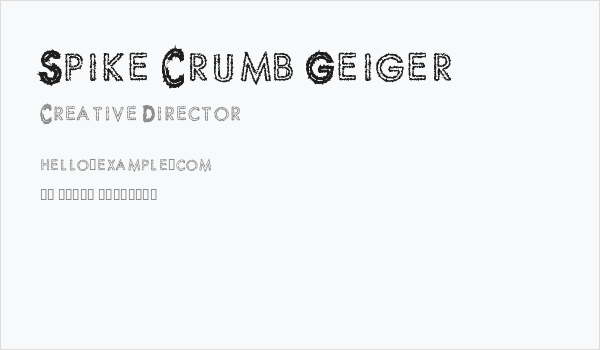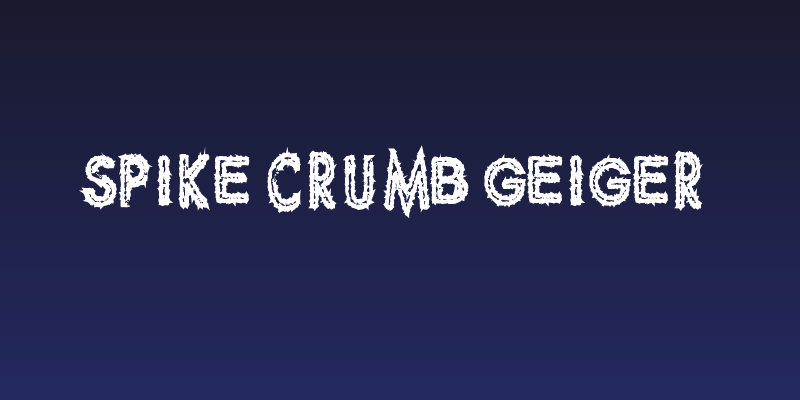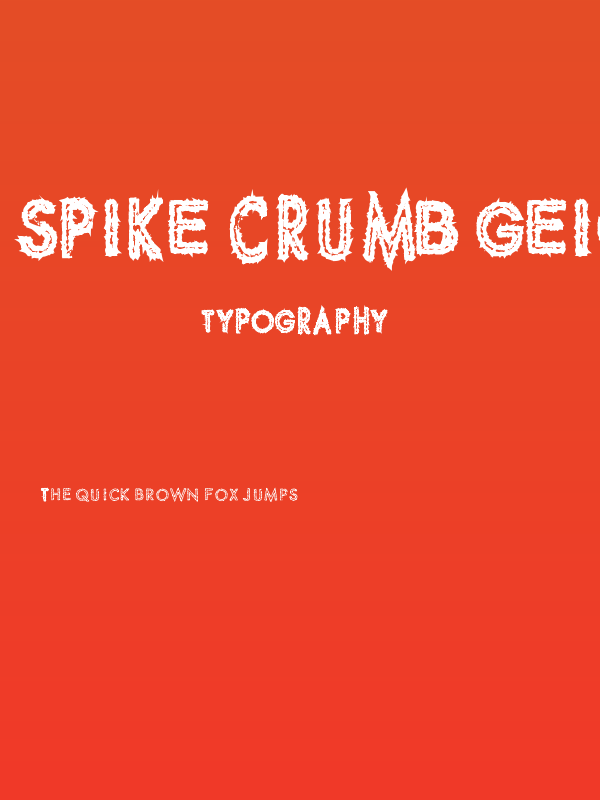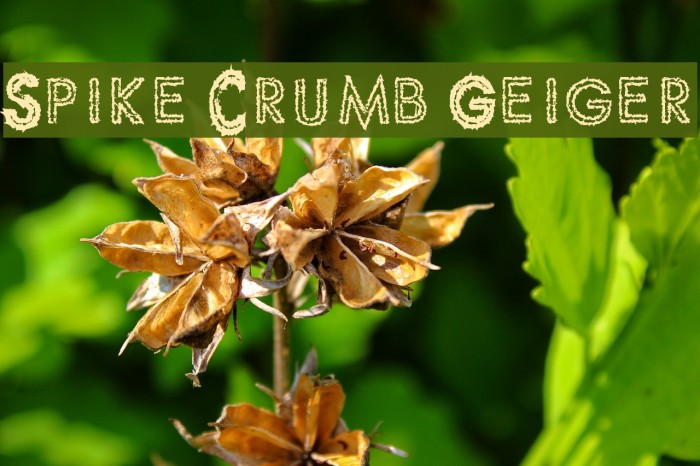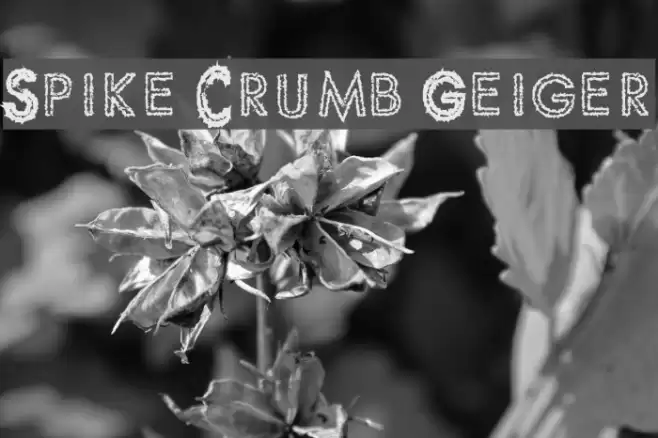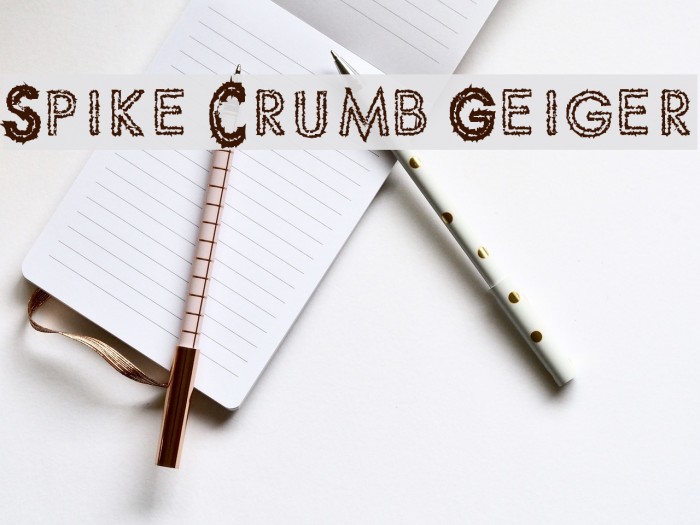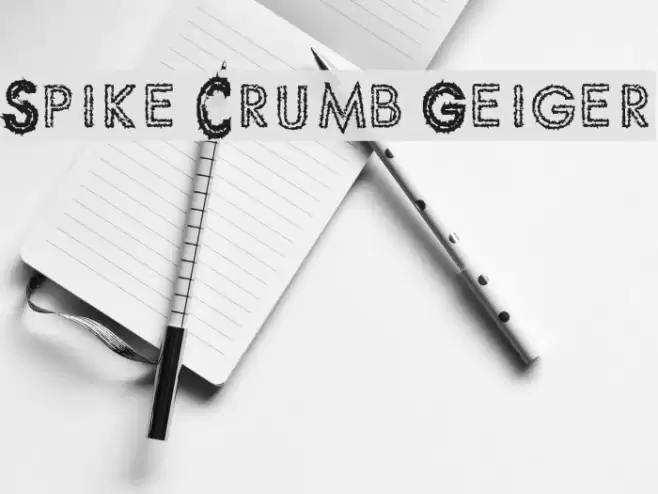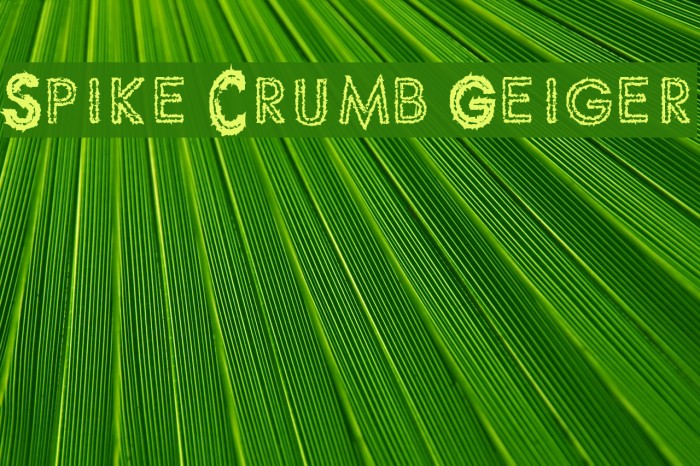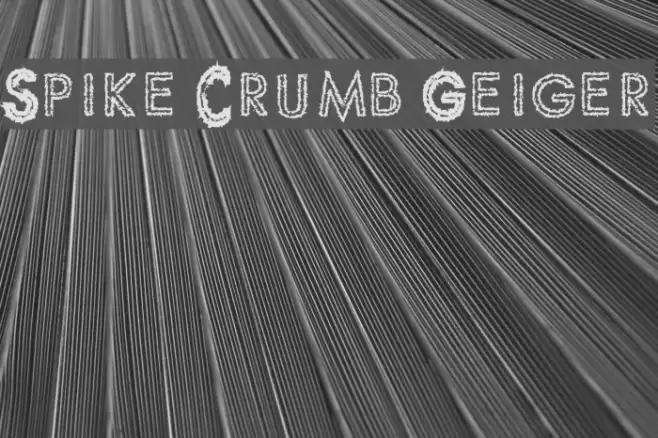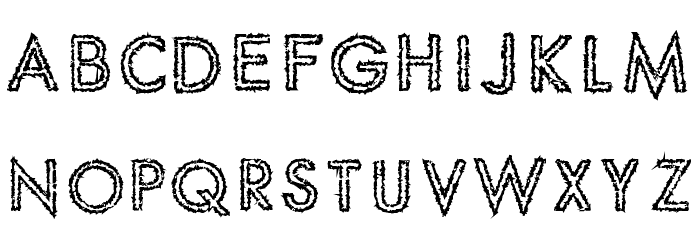
Spike Crumb Geiger Font
Spike Crumb Geiger Description
This font features a unique, edgy design with jagged, spiky edges that give it a rugged and bold appearance. The uppercase and lowercase letters maintain a consistent style, with each character appearing as if it is composed of sharp, thorn-like elements. This creates a visually striking effect that is both chaotic and artistic. The font's irregular outlines and textured look make it stand out, adding a sense of movement and energy. It's perfect for projects that require a dramatic and unconventional typeface.
| Proposed Projects | Ideal for album covers, horror-themed posters, edgy branding, and creative design projects that require a bold statement. |